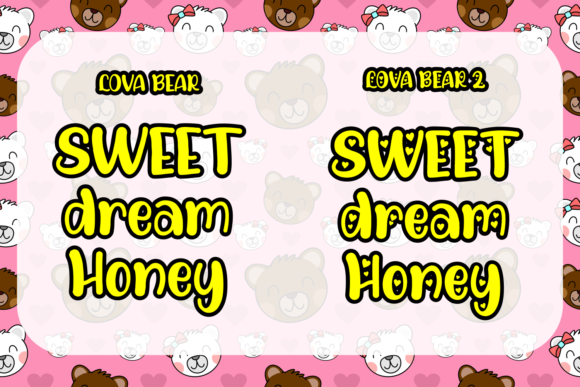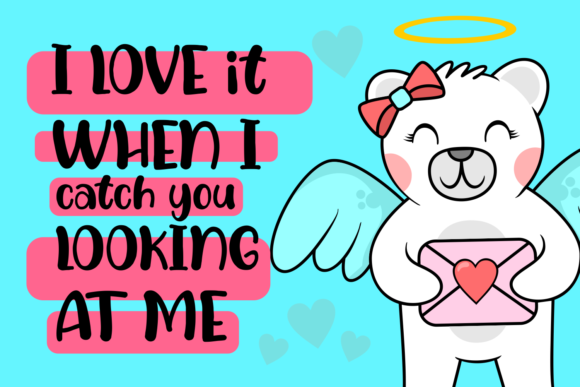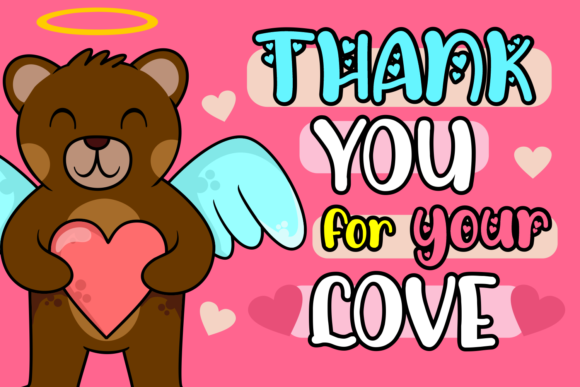
Introduction to Lova Bear Font
Have you ever found yourself sitting at your desk, surrounded by scraps of paper, glue, and scattered ideas, trying to come up with the perfect design for a loved one? That’s exactly where I was when I stumbled upon the Lova Bear Font – a game-changing, high-quality design resource that transformed my creative project in an instant.
As a designer, I’m always on the lookout for unique and eye-catching fonts to add a personal touch to my projects. And let me tell you, Lova Bear Font did not disappoint. With its soft, hand-lettered script and playful rounded characters, this font is a must-have for any designer looking to create stunning Valentine’s Day art or beautiful stationery. Whether you’re working on a wedding invitation, social media post, or greeting card, the Lova Bear Font is sure to make your design stand out.
Key Features of Lova Bear Font
- Lova Bear Font is a high-quality design resource ideal for creative projects that require a unique touch.
- Features a transparent background, making it easy to overlay on various design elements.
- This free download includes 5 font styles, each with its own distinct character and flair.
- Lova Bear Font is suitable for a wide range of design applications, from logos and branding to digital art and print materials.
- The font is designed to be highly legible at various resolutions, ensuring it looks great at both small and large sizes.
- The unique, hand-drawn style of Lova Bear Font makes it a standout design resource for creatives looking to add a personal touch to their projects.
Honest Review: Lova Bear Font
As a designer, I’m always on the lookout for high-quality design resources to enhance my creative projects. The Lova Bear Font caught my attention, and I decided to give it a try. In this review, I’ll share my honest thoughts on this font.
- ✨ The Lova Bear Font has a unique and playful design that adds a personal touch to any project.
- ✨ The transparent background makes it easy to layer and manipulate the font in creative ways.
- ⚠️ The font may not be suitable for formal or professional projects, as it has a more playful and casual tone.
- ⚠️ Some users may find the font’s design too quirky or unconventional.
Overall, I think the Lova Bear Font is a great addition to any designer’s toolkit. It’s perfect for creative projects that require a unique and playful touch. If you’re looking for a high-quality, free design resource, I would definitely recommend giving the Lova Bear Font a try.
The Lova Bear Font is a high-quality design resource ideal for creative projects. Its transparent background makes it versatile and easy to use in various applications.
Tips for Getting the Most Out of Lova Bear Font
To get the most out of the Lova Bear Font, use it in combination with other design resources. Experiment with different font sizes, colors, and styles to create unique and engaging designs.
The Lova Bear Font is ideal for use in social media graphics, presentations, and documents. It’s also suitable for use in branding and marketing materials, such as business cards and brochures.
Great Vibes Font is similar to Lova Bear Font in its cursive style, but it has a more refined and sophisticated look. While Lova Bear Font has a more playful and childlike feel, Great Vibes Font is better suited for more mature and elegant designs.